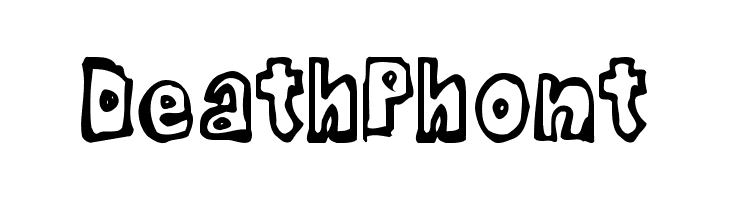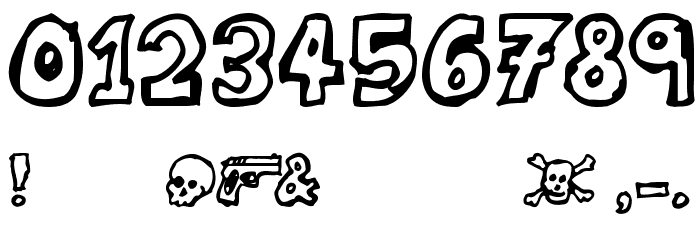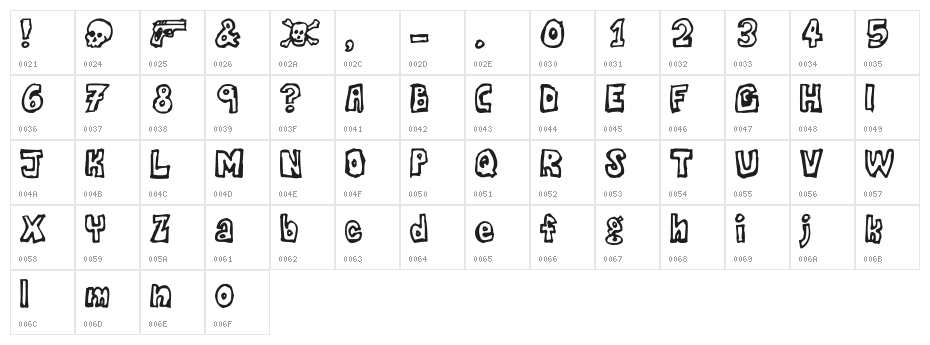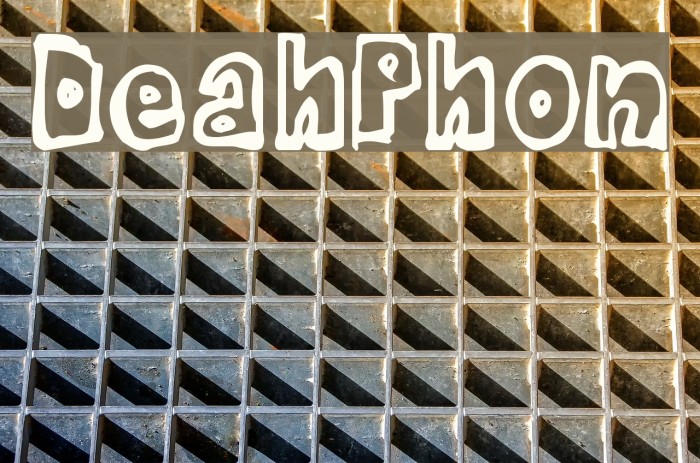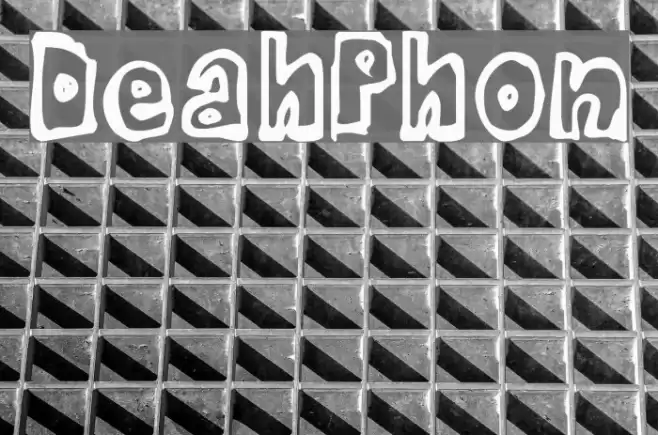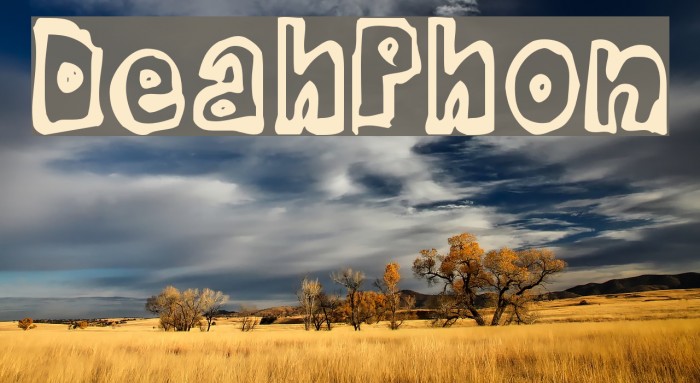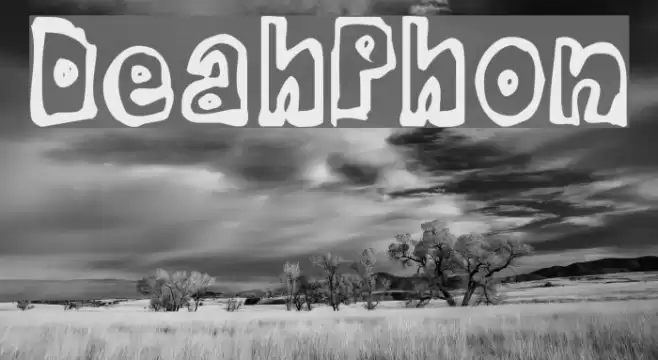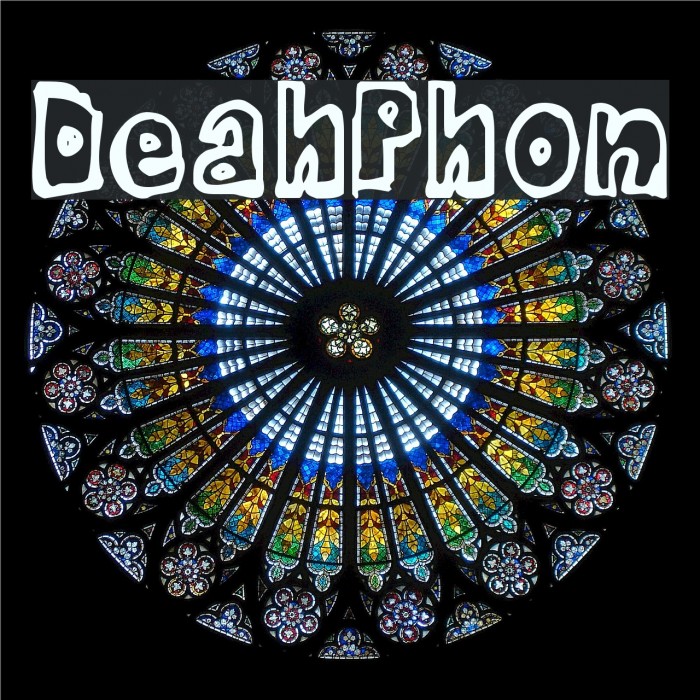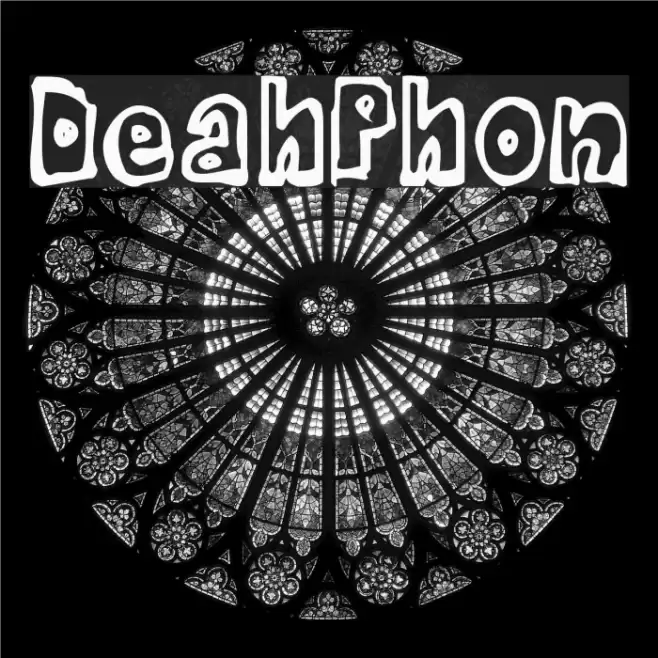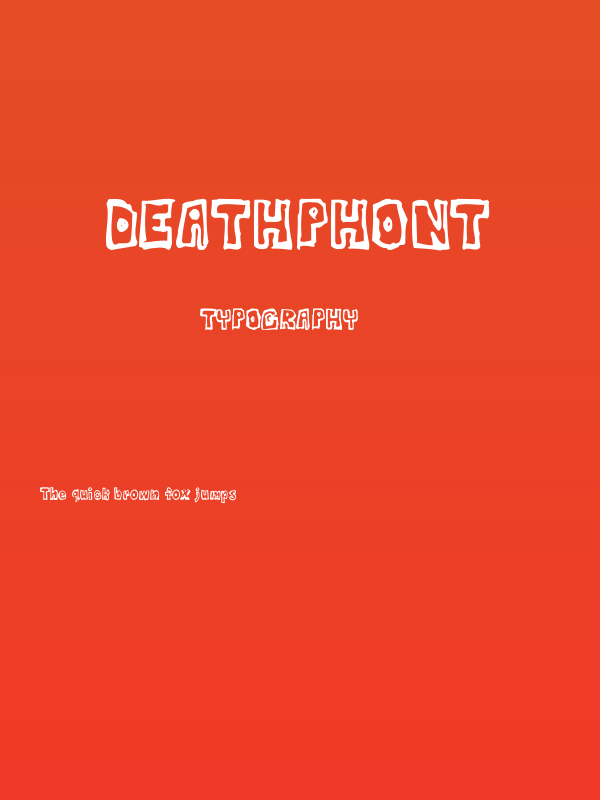
DeathPhont Font
DeathPhont Description
This font features a bold and playful design with a hand-drawn aesthetic. Each character is outlined with a thick black border, giving it a cartoonish and slightly chaotic appearance. The letters are irregular in shape, adding to the whimsical and informal style. The numbers and special characters follow the same playful theme, with unique symbols like a skull and crossbones, a gun, and other quirky icons. This font is ideal for projects that require a fun, rebellious, or edgy look, making it perfect for Halloween themes, comic books, or youth-oriented designs.
| Proposed Projects | Ideal for Halloween themes, comic books, youth-oriented designs, and edgy branding. |